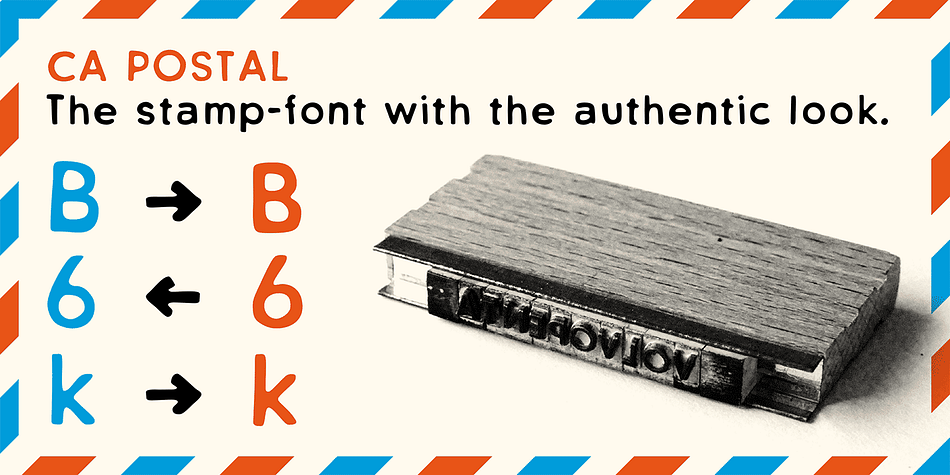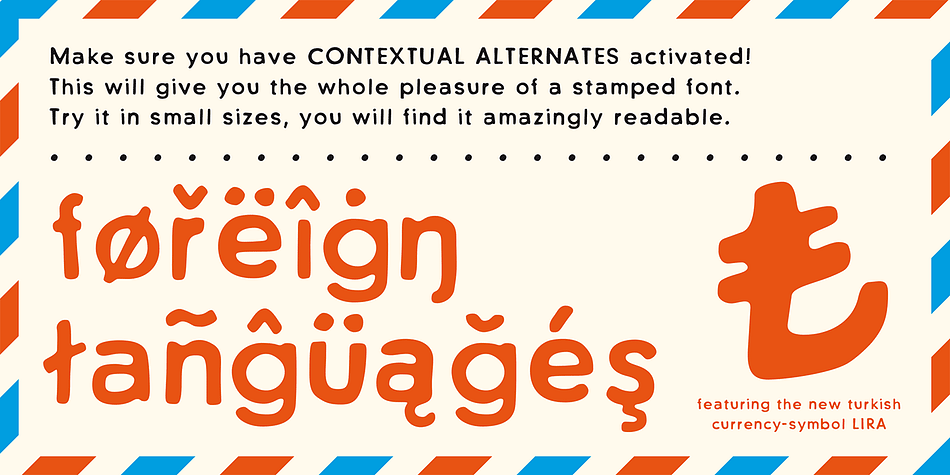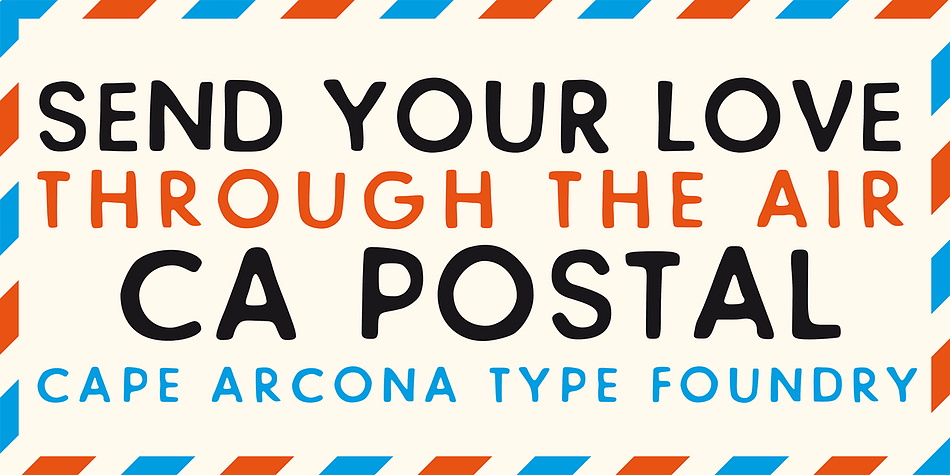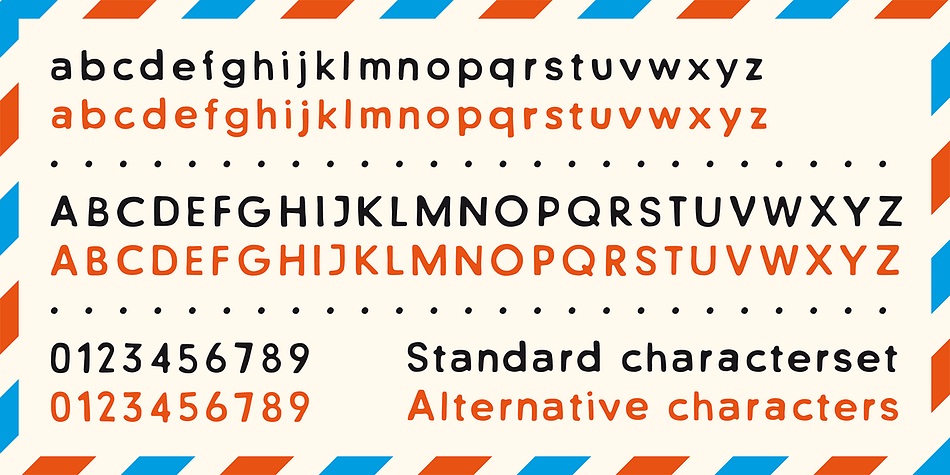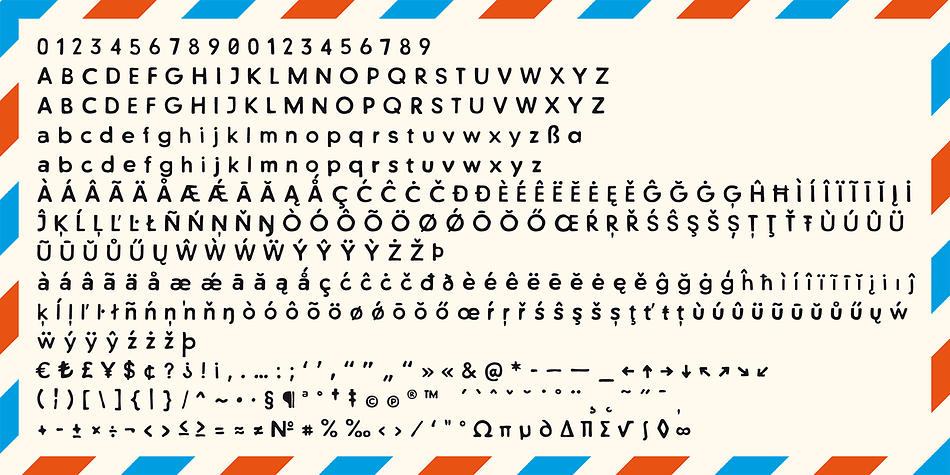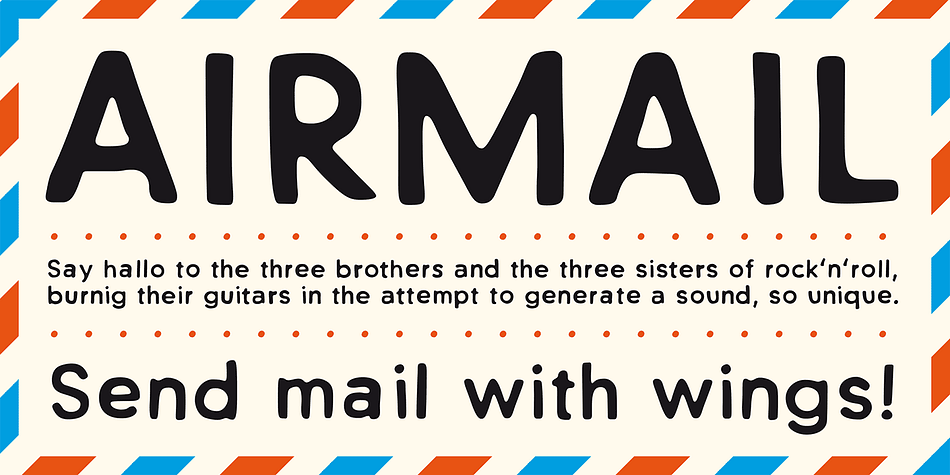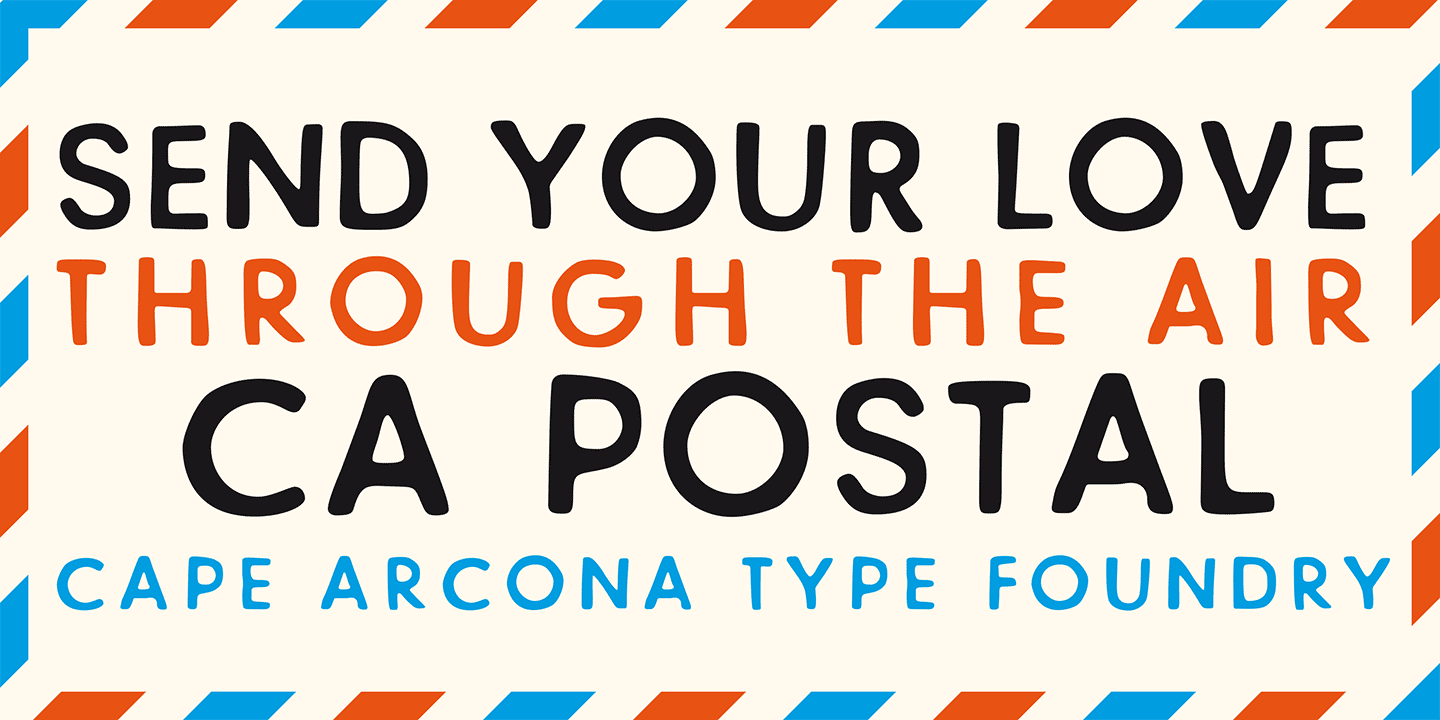
CA Postal is a hand drawn font published by Cape Arcona Type Foundry.
CA Postal is a cute and clever little stamp-font. It was originally intended for a record-cover only, but when the artist wanted all lyrics printed in the booklet, it was time for a font. The initial inspiration was a moveable-stamp printing-set, which had a nice Futura-like style, being very pleasant to read, especially in small sizes. But of course it’s the loose and irregular outlines that give the font its special charms.
CA Postal features two sets of characters and the “Contextual Alternates” feature will make sure that never two identical characters will stand next to each other, so that the stamp-look becomes even more authentic.